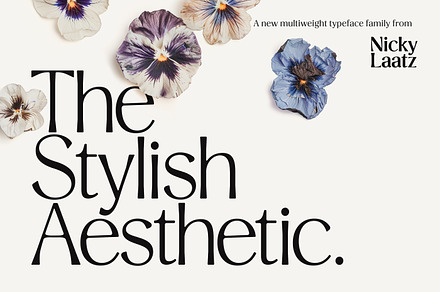
Stylish Aesthetic Typeface
A stylish aesthetic typeface with distinctive letterform quirks that give a set word immediate personality.
Character-heavy faces are less versatile but more memorable, which is the correct trade for a brand that needs to be recognised quickly.
- Distinctive letterform detailing
- Alternates and ligatures
- Brand identity and logos
- Fashion and lifestyle packaging
- Social and campaign graphics
- Editorial headlines